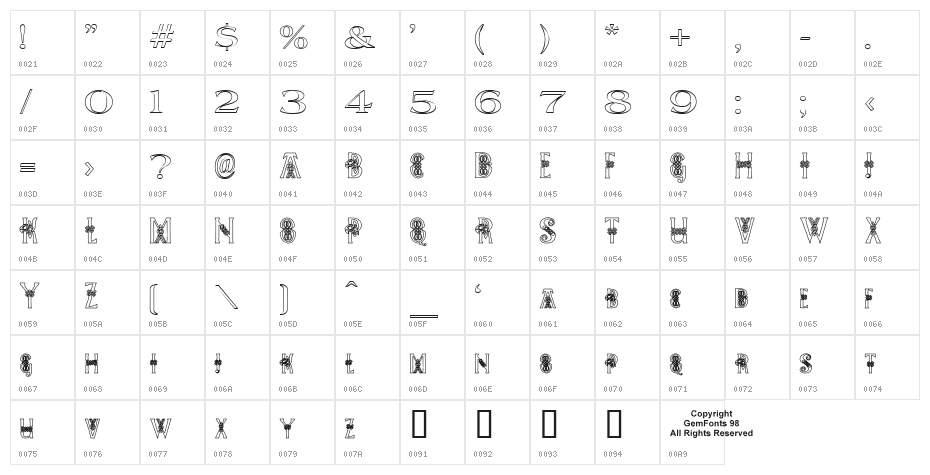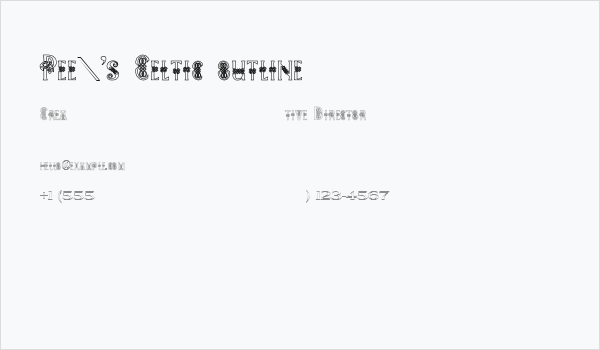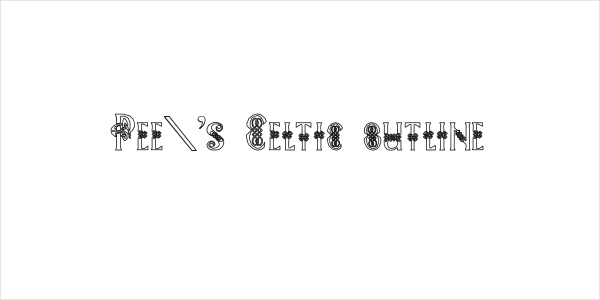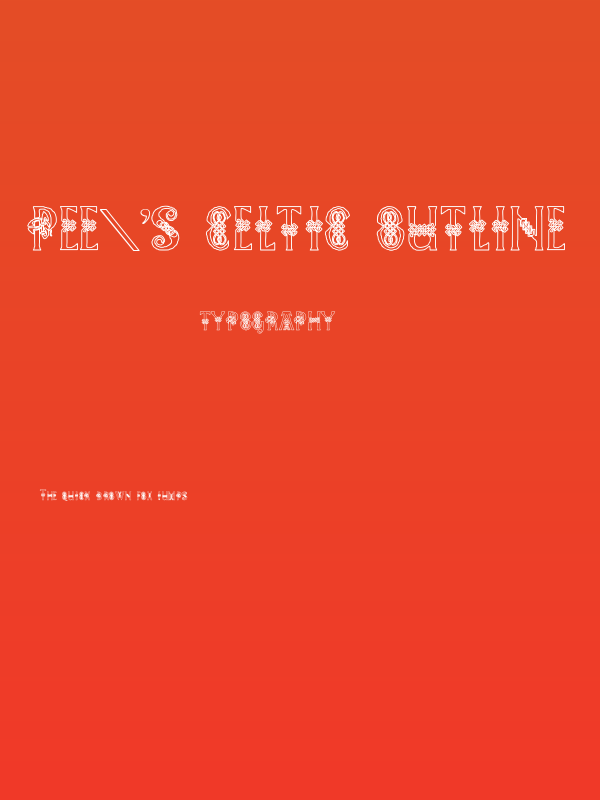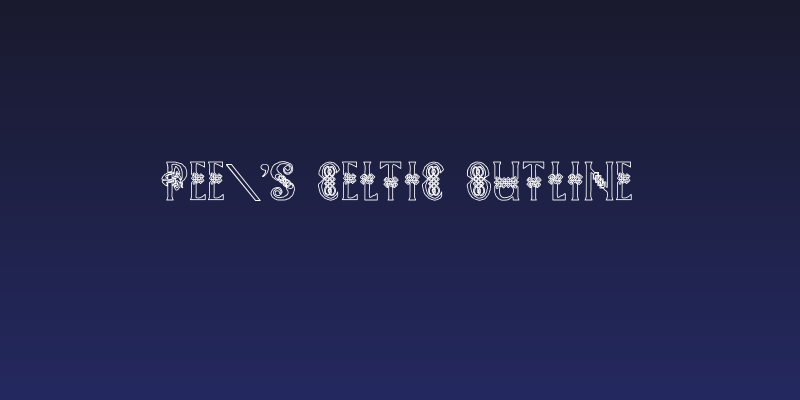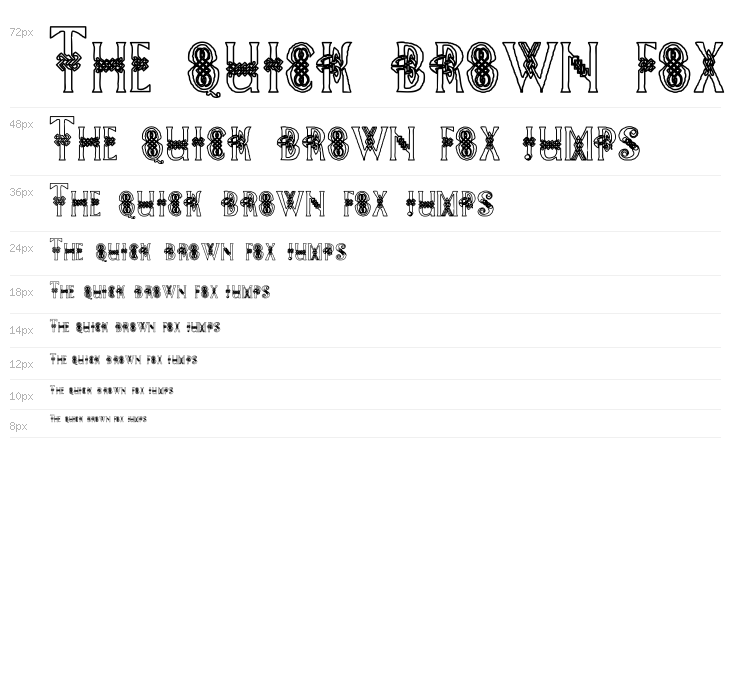
Pee's Celtic outline Font
Pee's Celtic outline Description
This font features an intricate Celtic-inspired design with elaborate knotwork and interwoven patterns. Each character is outlined, giving it a bold and decorative appearance. The uppercase letters are particularly ornate, with complex detailing that evokes traditional Celtic art. The lowercase letters and numbers maintain the same thematic style but with slightly less complexity, ensuring readability. Special characters are also included, each with unique embellishments that complement the overall aesthetic. This font is ideal for projects that require a touch of historical or cultural flair, offering a distinctive and artistic look.
| Use Case | Headlines, Logos, Decorative text |
| Proposed Projects | Ideal for cultural event posters, historical themed designs, book covers, and decorative signage. |